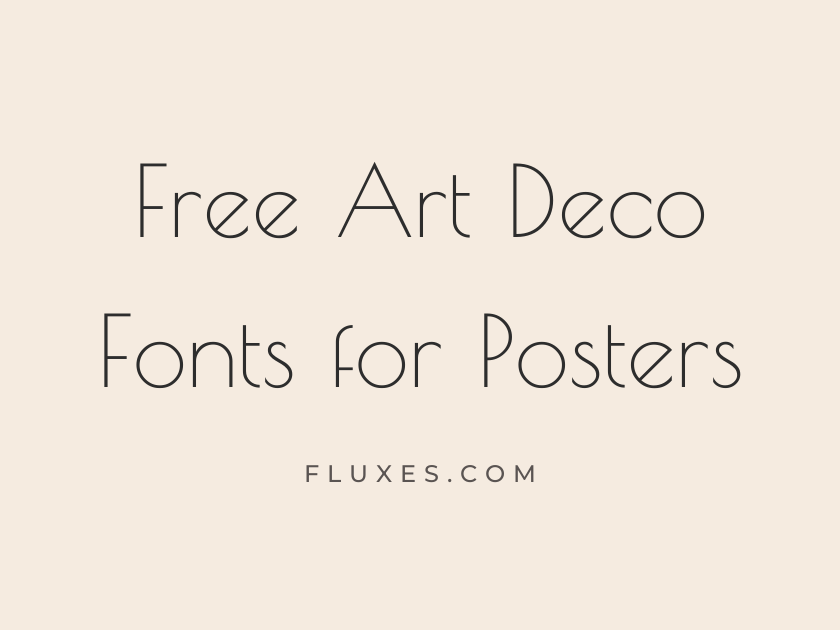
54 Best Free Art Deco Fonts for Posters
The Art Deco era gave the world some of its most confident, glamorous typography: geometric sans letterforms borrowed from skyscrapers and ocean liners, elegant serifs carved like architectural friezes, and decorative caps dripping with gold leaf and sunburst motifs. Anyone designing a jazz age invitation, a vintage travel poster, or a Gatsby-inspired event flyer eventually runs into the same problem: most of the true period faces are locked behind expensive licenses. Fortunately, Google Fonts has quietly built up a strong bench of free Art Deco fonts and close relatives that capture that same streamlined glamour without costing a thing.
The fonts recommended here span the full range a poster designer needs, from authentic decorative display faces to the geometric sans workhorses that defined the period’s advertising, plus the elegant serifs that give deco design its sense of occasion.
1. Poiret One
Champagne towers and jazz age glamour
Few free fonts capture the Paris-runway side of Art Deco as precisely as Poiret One. Its extremely thin, elongated strokes and perfectly rounded geometry were inspired by the fashion illustration and couture branding of the 1920s, and the font is named for Paul Poiret, the designer credited with liberating women from the corset.
It reads best set large, in generous letter spacing, on posters, invitations, and title cards where elegance matters more than legibility. Pair it with a heavier geometric sans for body copy, since at small sizes those hairline strokes vanish into nothing.
2. Cinzel Decorative
Gilded letters for the grandest marquee
Cinzel Decorative takes the classical, chiseled proportions of Roman inscriptions and dresses them up with ornamental swashes and flared serifs that feel carved into marble or stamped in gold foil. It has become a go-to for luxury branding and cinema-style title cards precisely because it reads as both ancient and glamorous at once.
Use it sparingly, as a headline or monogram rather than running text; the decoration is the whole point, and it gets busy in long sentences.
3. Limelight
Step into the spotlight, darling
Limelight
Limelight has the confident, slightly theatrical weight of a marquee sign outside a grand cinema. Its rounded corners and even strokes give it a friendly warmth that plain geometric sans faces often lack, making it a strong choice for event posters and playbill-style headers.
4. Fascinate
Sunburst motifs and skyscraper silhouettes
This one leans hard into ornament, with each letterform built from interlocking geometric shapes that recall stained glass and stepped skyscraper facades. It is a novelty face best reserved for short, punchy headlines rather than anything a reader needs to parse quickly.
5. Fascinate Inline
Gold leaf lettering for opening night
Fascinate Inline
The inline sibling of Fascinate hollows out those same interlocking shapes, giving the letters a light, engraved quality that works beautifully in gold or metallic color treatments on dark backgrounds.
6. Vast Shadow
Cast in bronze, framed in neon
Vast Shadow bakes a drop shadow directly into the letterforms, giving flat headlines an instant sense of dimension and stagecraft. It suits vintage cinema and casino signage particularly well, standing in nicely for the extruded, sculptural lettering deco sign painters favored.
7. Monoton
Neon lights above the grand cinema
Built from parallel lines that mimic the tubing of a neon sign, Monoton is the closest free font to an actual lit marquee. It only exists as an all-caps display face, so it belongs on posters and title treatments, never on body text where those repeated lines would blur into static.
8. Erica One
Bold curves for a roaring twenties bill
Erica One
Erica One has a rounded, slightly bouncy geometry that feels like it stepped off a vaudeville handbill. It carries just enough deco structure to fit the theme while staying friendlier and more legible than the more ornamental options on this list.
9. Federo
Chrome trim on a streamlined liner
Federo
Federo’s smooth, low-contrast curves and slightly rounded terminals evoke the streamlined moderne branch of Art Deco, the style applied to trains, radios, and ocean liners rather than jewelry and architecture. It works well for a design that wants deco polish without leaning fully into 1920s ornament.
10. Voltaire
Sleek lines for a modern metropolis
Voltaire
A tidy, upright sans with understated geometry, Voltaire slots comfortably into headline and subhead roles where you want a whisper of period character without pulling focus from the main display type.
11. Belleza
Refined elegance for a supper club
Belleza
Belleza is light, humanist, and restrained, closer to a 1930s magazine masthead than a loud poster font. It is a smart choice for taglines and credit lines sitting underneath a bolder decorative headline.
12. Julius Sans One
Understated glamour on velvet programs
Julius Sans One
Keep decorative and stencil faces large and short. They lose clarity fast at small sizes or in long paragraphs.
Gold, black, teal, and cream color palettes reinforce the period feel more reliably than typeface choice alone, so consider color and texture alongside whichever fonts you download.